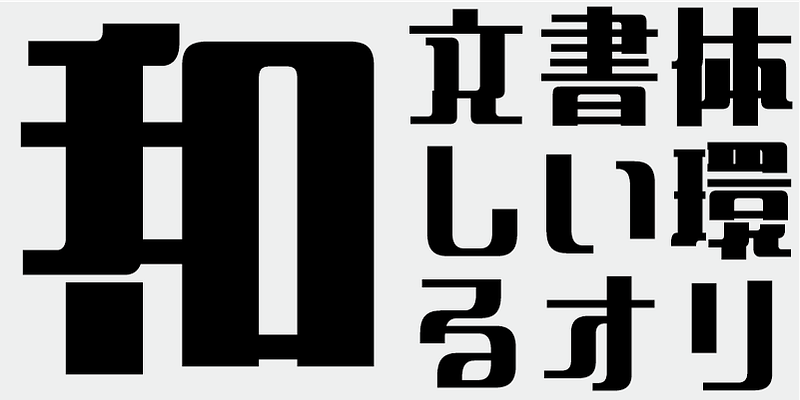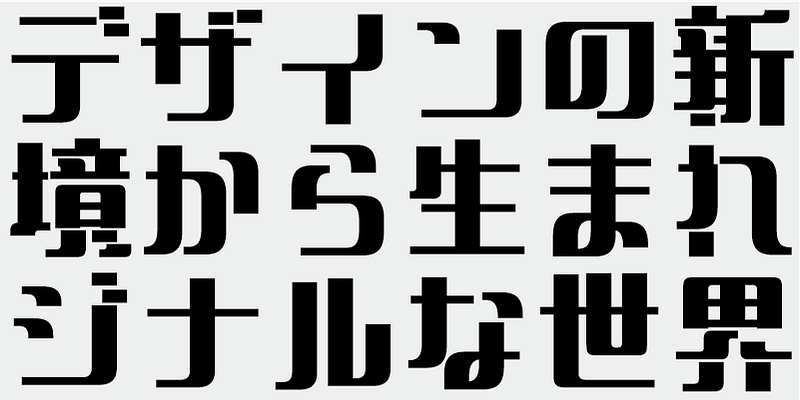
Based on the hypothesis that a character can work even if very simplified, this experimental typeface was designed with a set of rules, including unifying the widths of horizontal and vertical strokes. Regarding each character as an independent sign and trying to go beyond the limitations of Japanese character elements, this unique typeface design became possible.